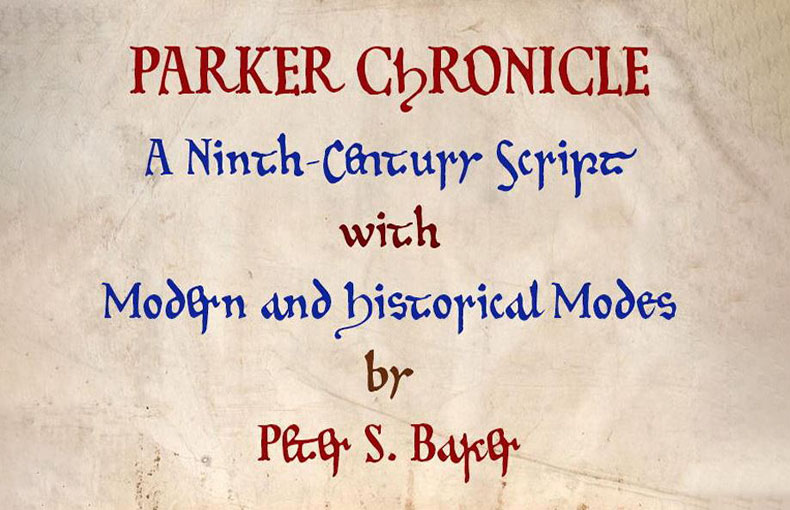
The Parker Chronicle Font is a script font based on the handwriting of the first scribe of the oldest manuscript of the Anglo-Saxon Chronicle, Corpus Christi College, Cambridge, MS 173.
This manuscript is usually referred to as the “Parker Chronicle” after Archbishop Matthew Parker (1504–1575), its first cutting-edge owner. The scribe whose work this font imitates wrote the chronicle’s annals up to the year 892, throughout the reign of King Alfred the Great.